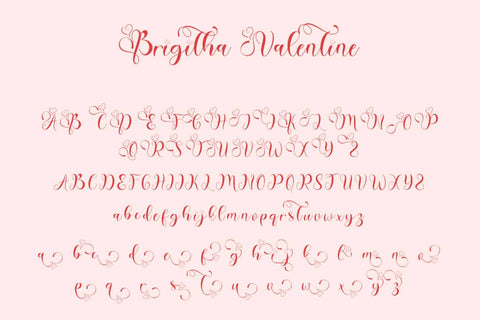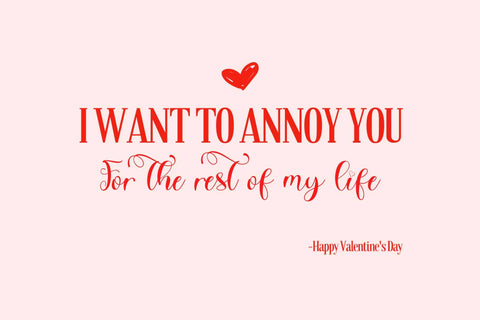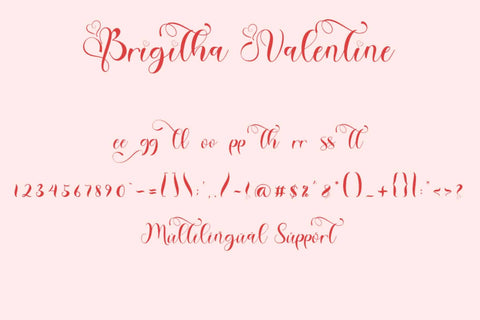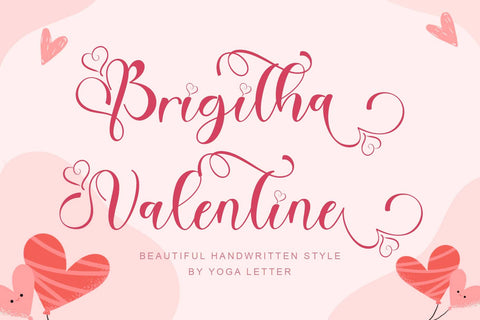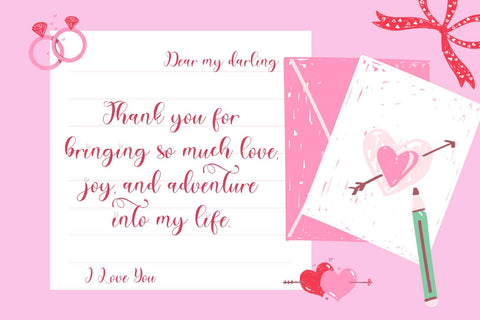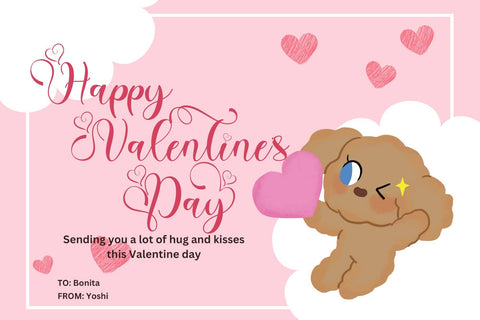
Brigitha Valentine
"Brigitha Valentine" is a beautiful and unique handwritten font. This font is equipped with uppercase letters, lowercase letters, numerals, uppercase alternates, lowercase alternates, punctuation, ligatures, and multilingual support. Very suitable for Valentine's Day, spring, summer, weddings, engagements, invitations, and others.